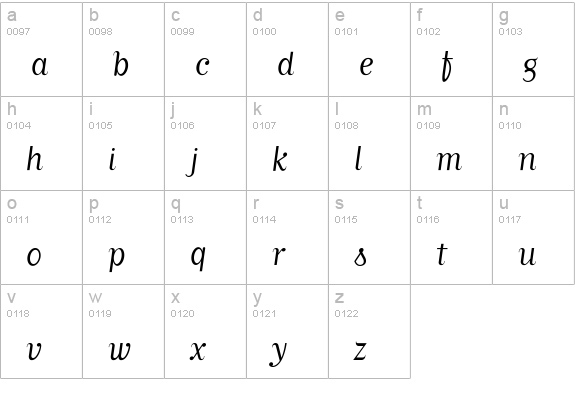
MatrixScriptBookOldstyle Font Details
Introducing MatrixScriptBookOldstyle font, a timeless and sophisticated typeface perfect for adding a touch of vintage elegance to your projects. This classic font exudes charm and grace, making it ideal for a wide range of design applications. With its intricate letterforms and ornate details, MatrixScriptBookOldstyle font captures the essence of old-world craftsmanship while still maintaining a modern appeal. What's even better is that MatrixScriptBookOldstyle font is available for free download at FontsMarket.com. Now you can bring a touch of timeless beauty to your designs without breaking the bank. Whether you're working on invitations, branding, or any other creative project, this font is sure to add a touch of class and sophistication. Don't miss out on this opportunity to elevate your designs with the elegant charm of MatrixScriptBookOldstyle font. Download it today and start creating stunning visuals that stand the test of time.